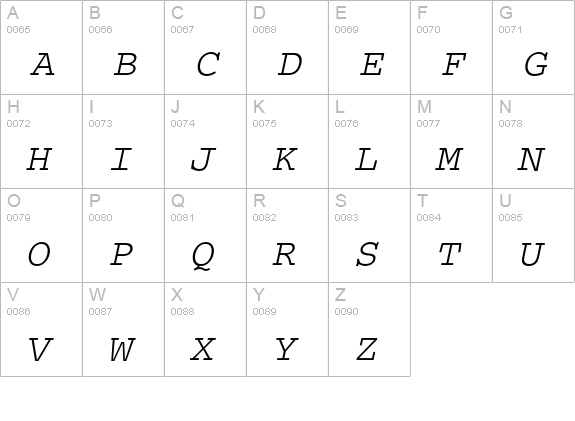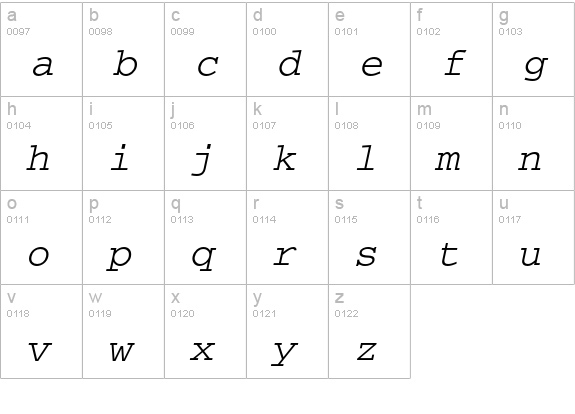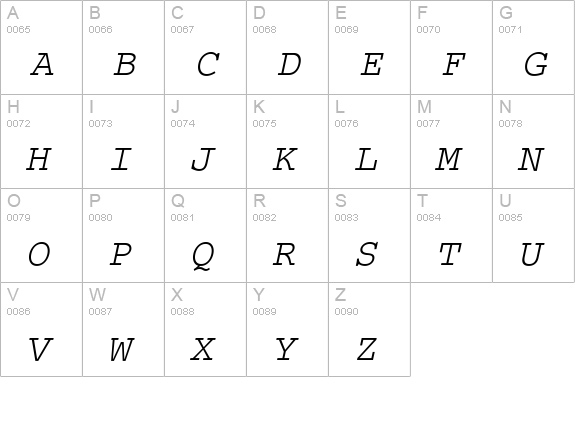
Courier CE Oblique Font Details
Courier CE Oblique is a distinctive, italic variant in the Courier typeface family \xE2\x80\x94 well suited to design and typography projects.
Courier CE Oblique font is a sleek and modern typeface that exudes professionalism and elegance. With its slanted style, it adds a touch of sophistication to any design project. Perfect for conveying a sense of speed and efficiency, this font is ideal for use in business documents, marketing materials, and more. What's even better is that Courier CE Oblique font is available for free download at FontsMarket.com. You can easily access this high-quality font to elevate your projects without any cost. Don't miss out on the opportunity to enhance your designs with this stylish and versatile typeface.